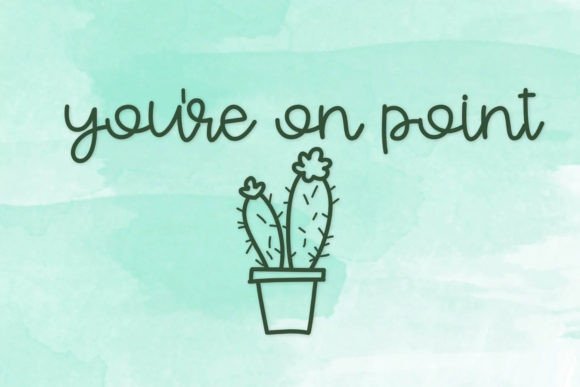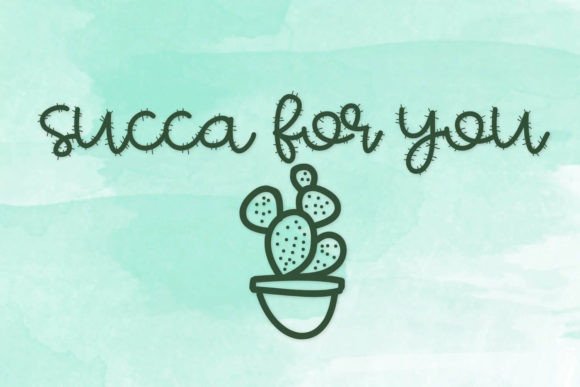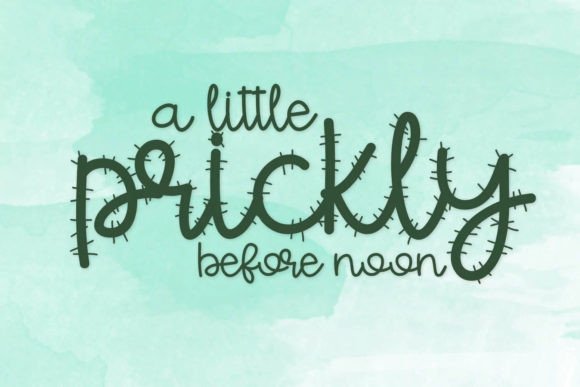
Fancactus Font
“Fancactus” is a unique handwritten script font that offers a thorny (or not) option, allowing you to choose the look that best suits your project. With its distinctive and versatile style, this font also comes with a few cactus doodles, adding an extra touch of creativity to your designs.
The thorny and handwritten nature of Fancactus makes it a standout choice for projects where you want to incorporate a touch of uniqueness and character. Whether you’re working on digital graphics or print materials, this font is crafted to bring an interesting and customizable aesthetic to your text.
The option to choose between thorny and non-thorny versions makes Fancactus a flexible font that can adapt to different design needs. Imagine using it for projects that range from edgy and bold to more subtle and playful, depending on your chosen style.
In summary, Fancactus is more than just a font; it’s a versatile and customizable handwritten script typeface that lets you decide the level of thorniness for your designs. Let it be the choice that adds a touch of uniqueness and creativity to your projects, making them stand out with a distinctive and personalized appeal.